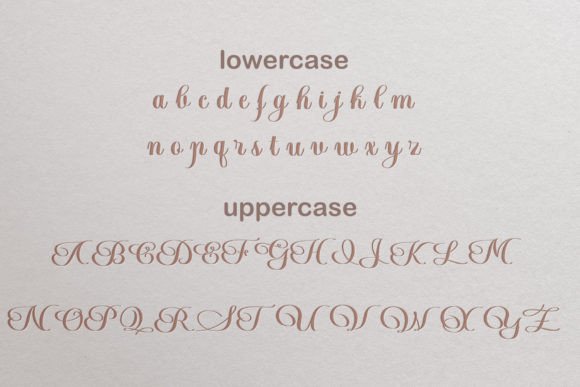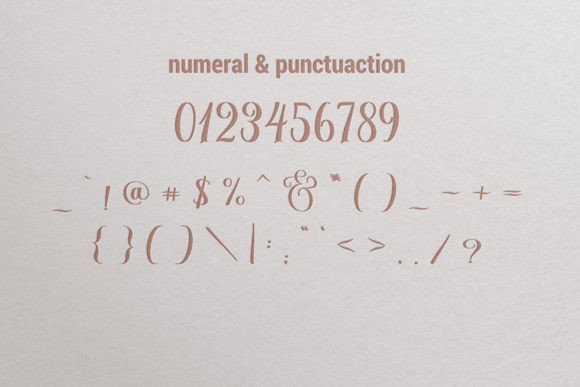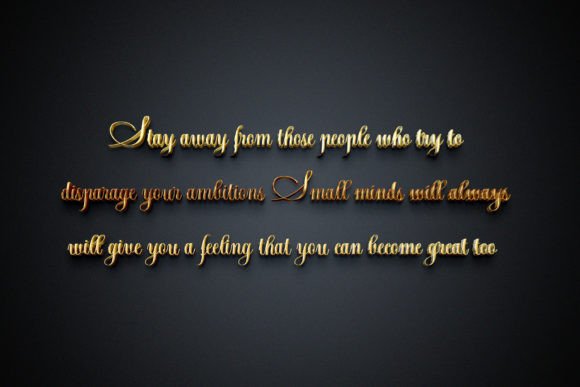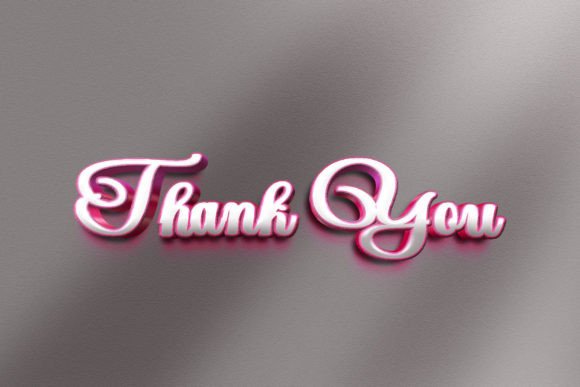
Introduction to Padimas Font
As a designer, you know that sometimes it’s the smallest details that make the biggest impact. You’re staring at a blank canvas, trying to bring a creative project to life, and suddenly, the perfect font pops into your head. For those moments, you need a reliable design resource that can elevate your work. Enter the Padimas Font – a modern script font that’s perfect for any project, from logos to book covers, and everything in between.
This versatile font is a game-changer for designers, offering a high-quality, transparent background that can be used across various design platforms. With its elegant script style, Padimas Font is sure to add a touch of sophistication to any creative project. And the best part? It’s available for free download, making it an accessible design resource for designers of all levels.
Key Features of Padimas Font
- High-quality, professional font suitable for creative projects requiring a unique touch.
- Transparent background, making it ideal for use with images or videos.
- Available in a range of sizes, with optimal resolution at 300 DPI for print materials.
- Designed to be versatile and adaptable for use in a variety of design contexts.
Honest Review: Padimas Font
As a designer, I’m always on the lookout for unique and high-quality fonts to add some flair to my creative projects. Recently, I stumbled upon the Padimas Font, and I’m excited to share my honest review with you.
- ✨ The Padimas Font has a beautiful, elegant design that’s perfect for titles and headings.
- ✨ The font is highly customizable, allowing you to adjust the size, color, and spacing to fit your design needs.
- ✨ The font works well on a transparent background, adding an extra layer of sophistication to your designs.
- ⚠️ The Padimas Font may not be suitable for large blocks of text, as it can be difficult to read at smaller font sizes.
- ⚠️ The font may not be as versatile as some other fonts, so it’s best to use it for specific design elements rather than as a primary font.
Overall, I’m impressed with the Padimas Font and would definitely recommend it as a design resource for creative projects. With its high quality design and customizable features, it’s a great addition to any designer’s toolkit.
Experiment with different font sizes and styles to find the perfect look for your project. You can also use the font in combination with other design elements, such as images and graphics, to create a unique and eye-catching design.
The Padimas Font is perfect for a variety of creative projects, including logos, brochures, business cards, and social media graphics. Its high-quality design makes it a great choice for both digital and printed materials.